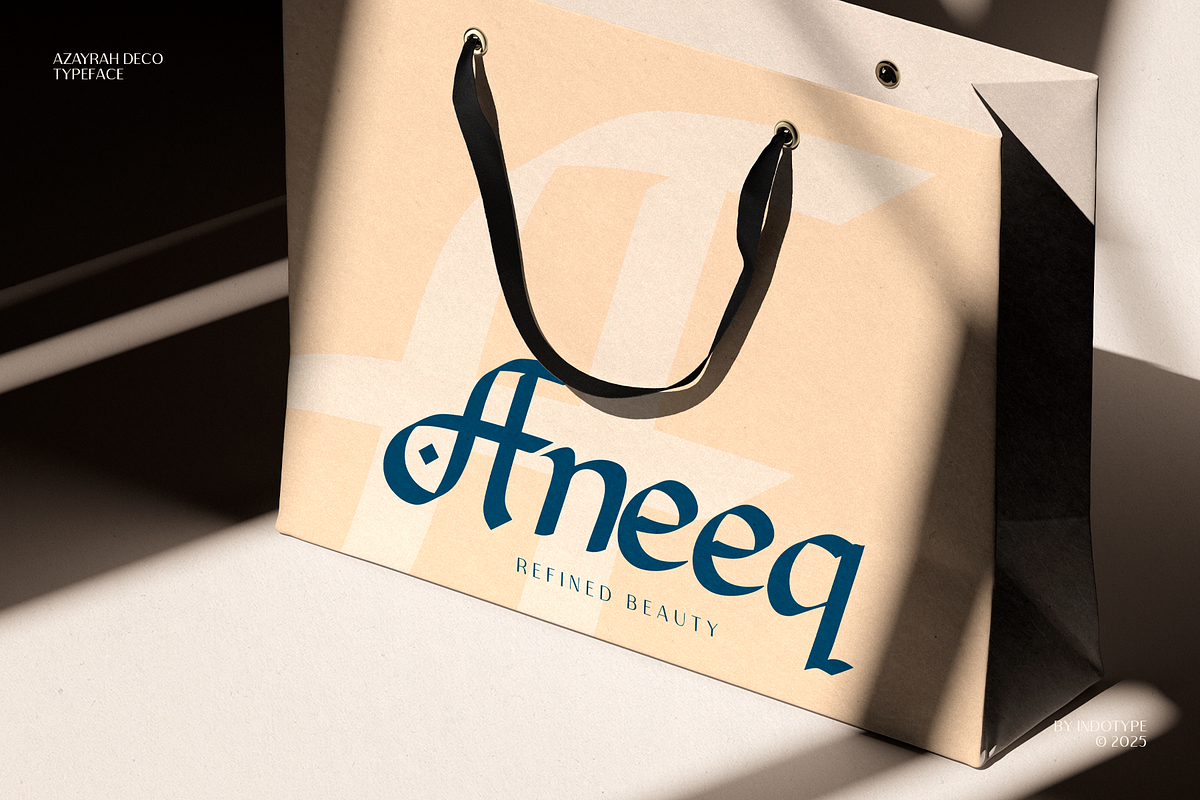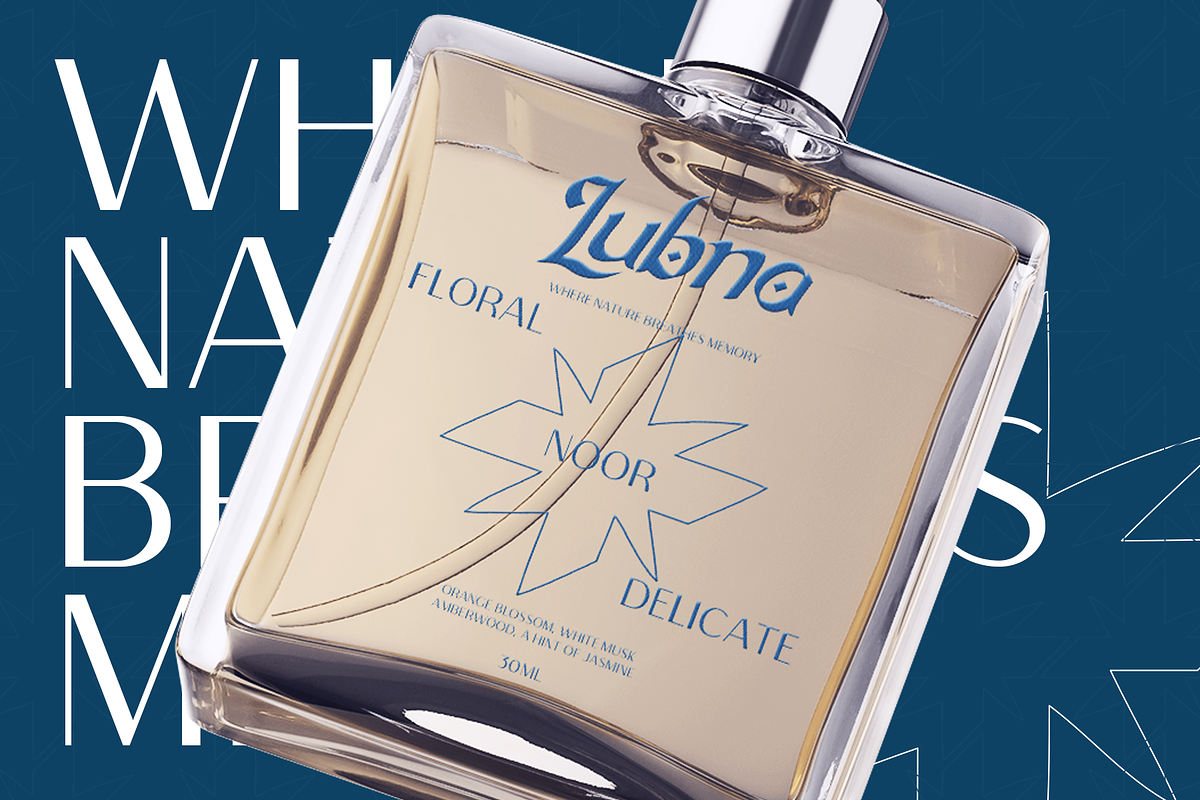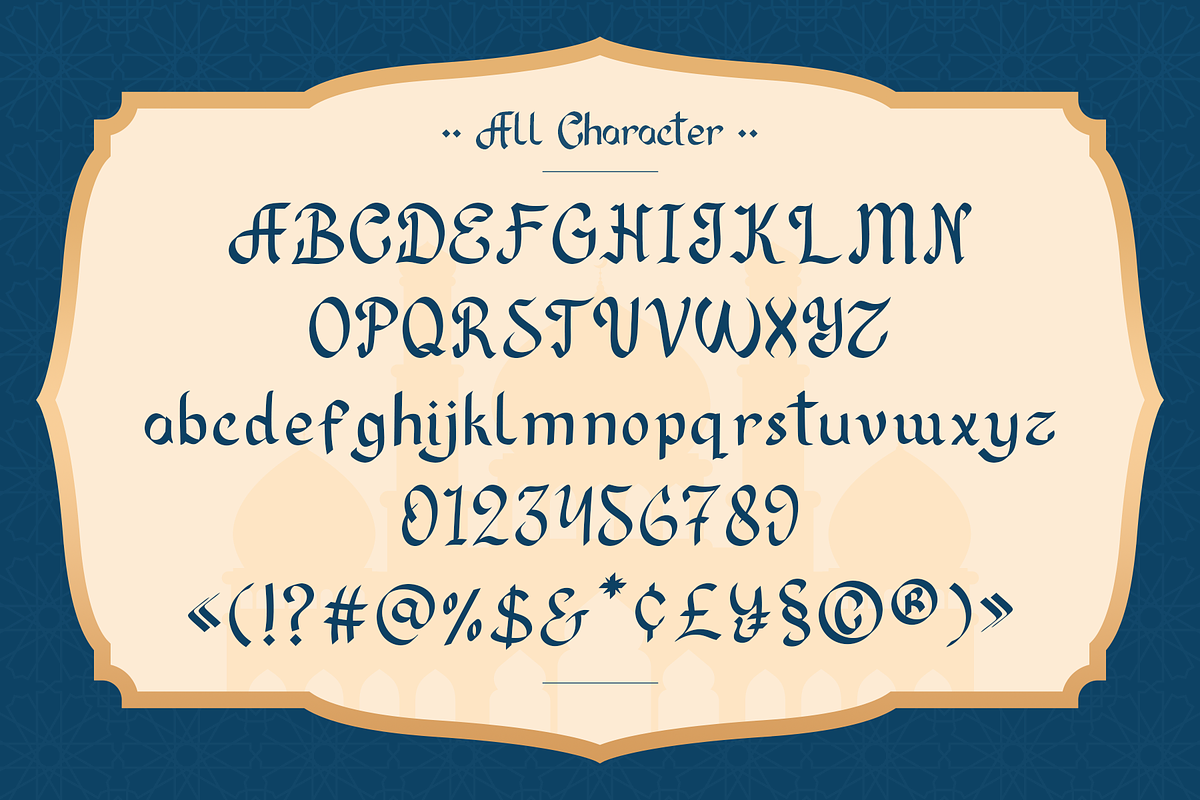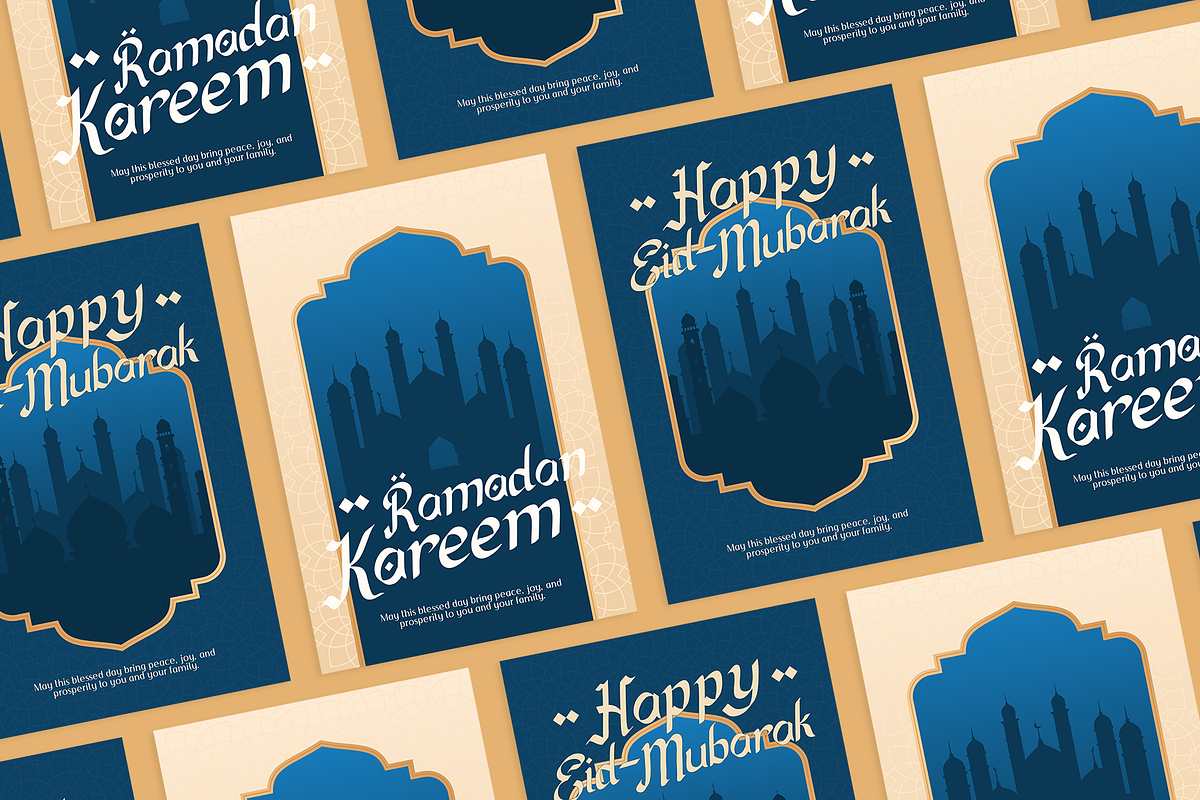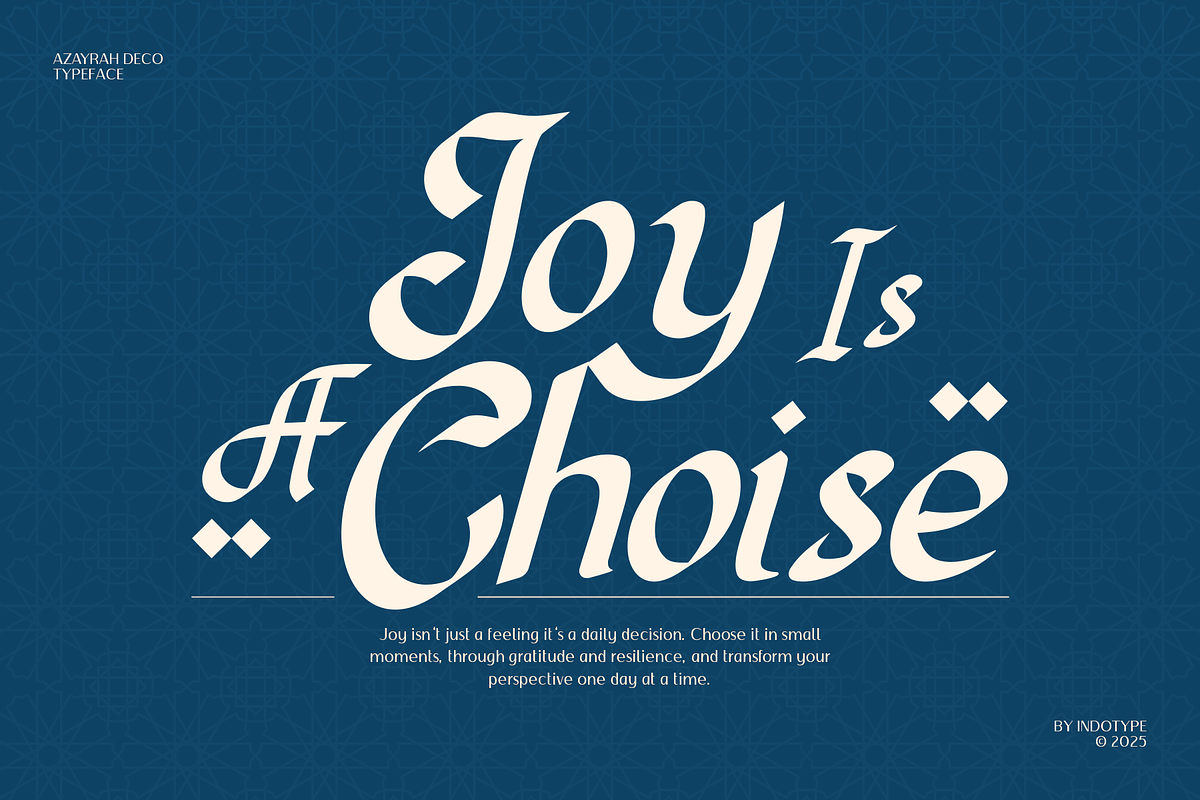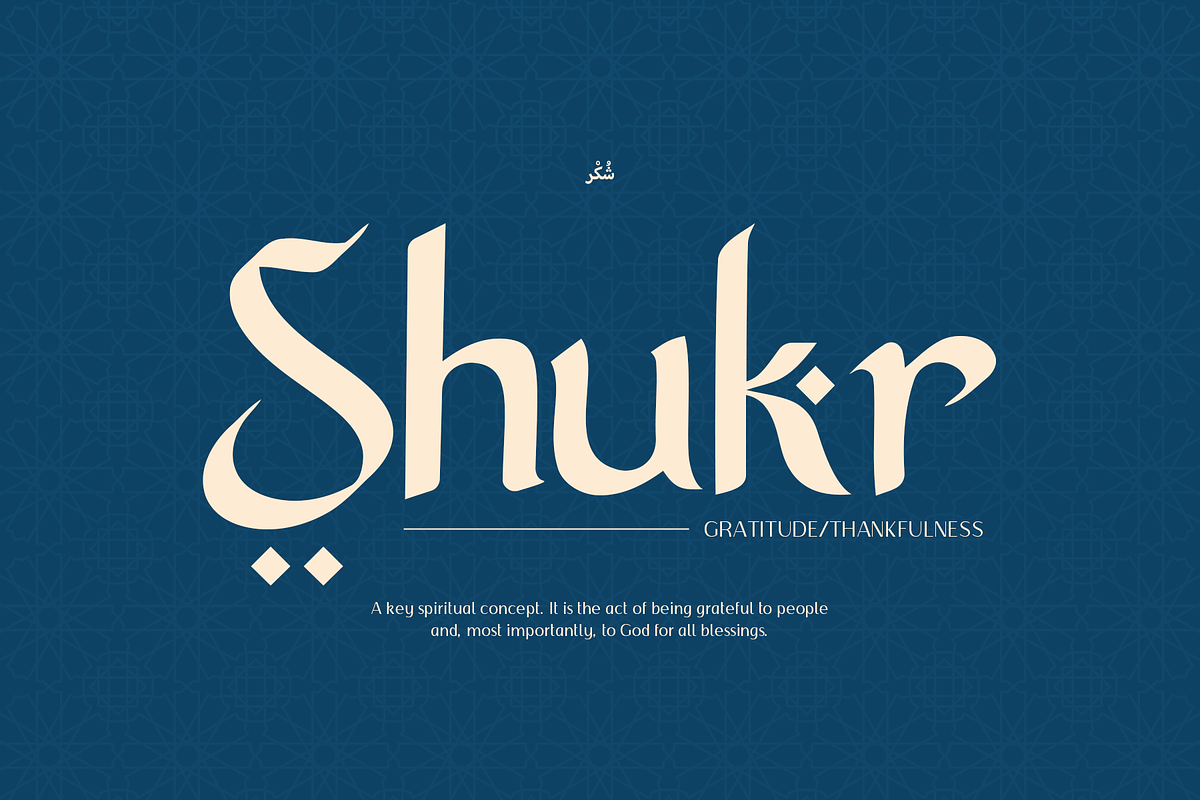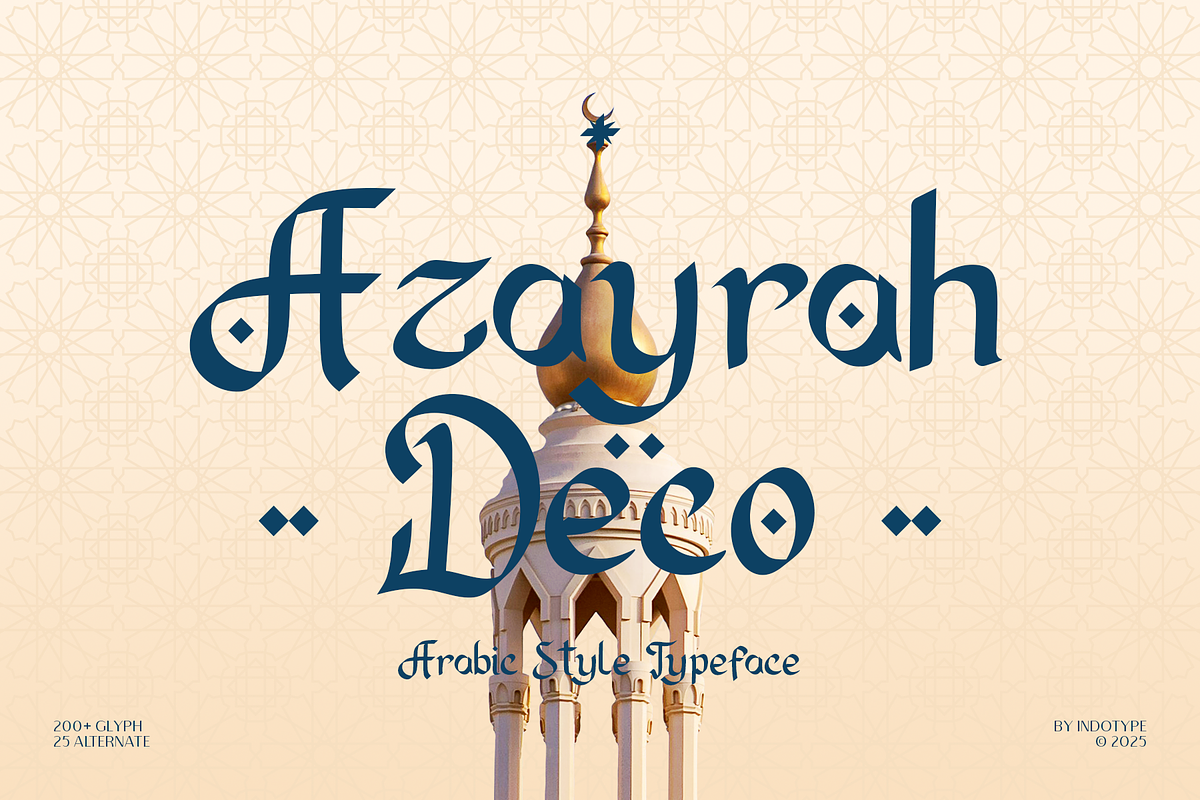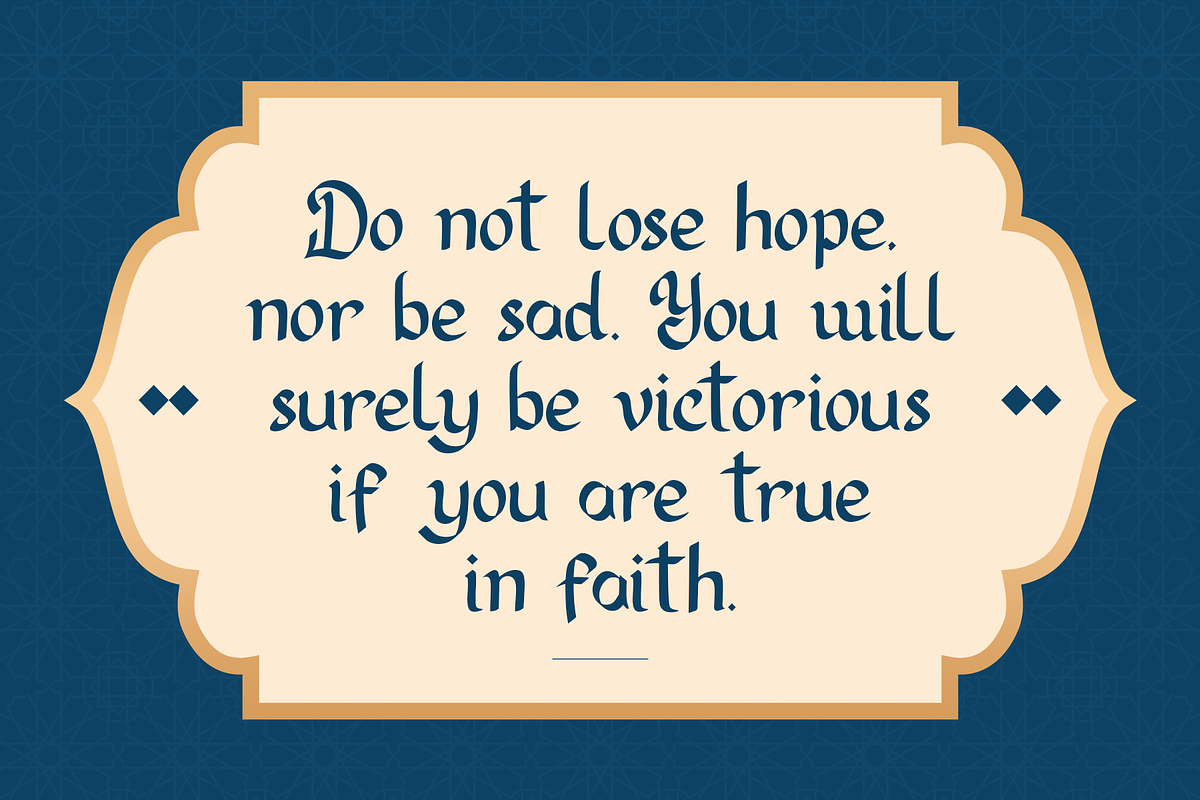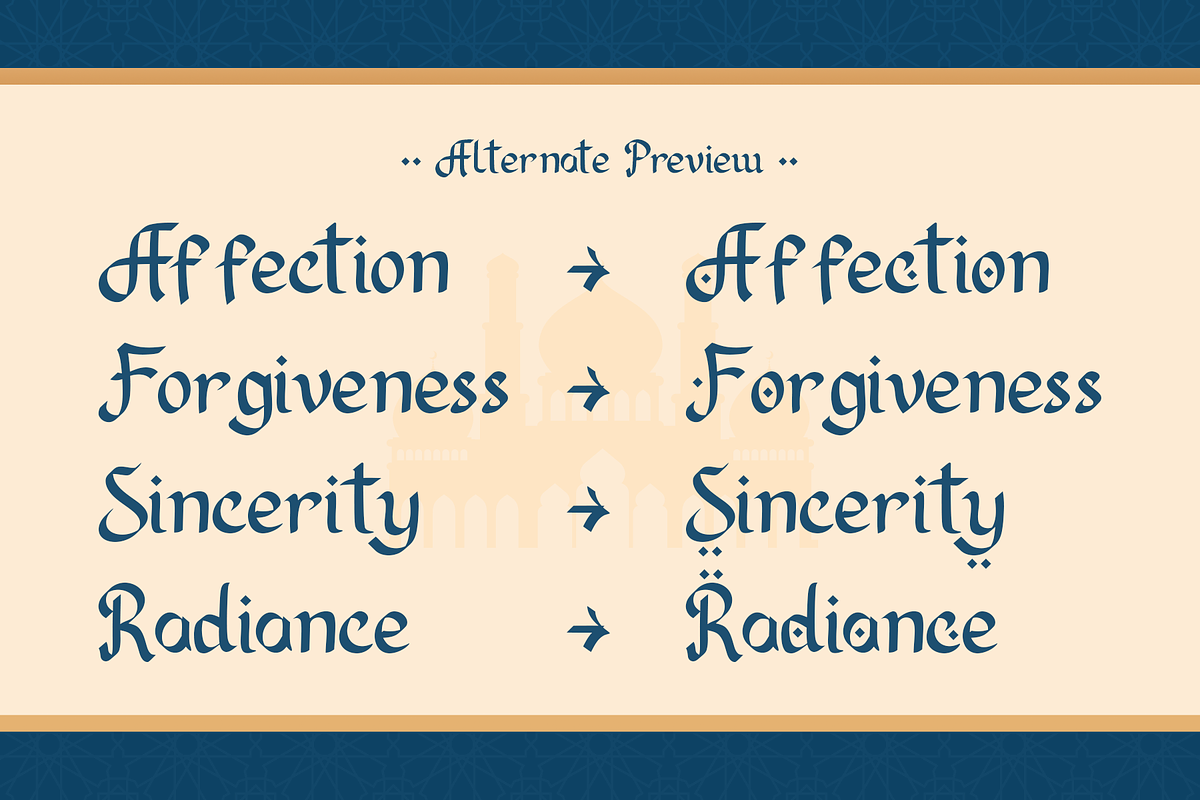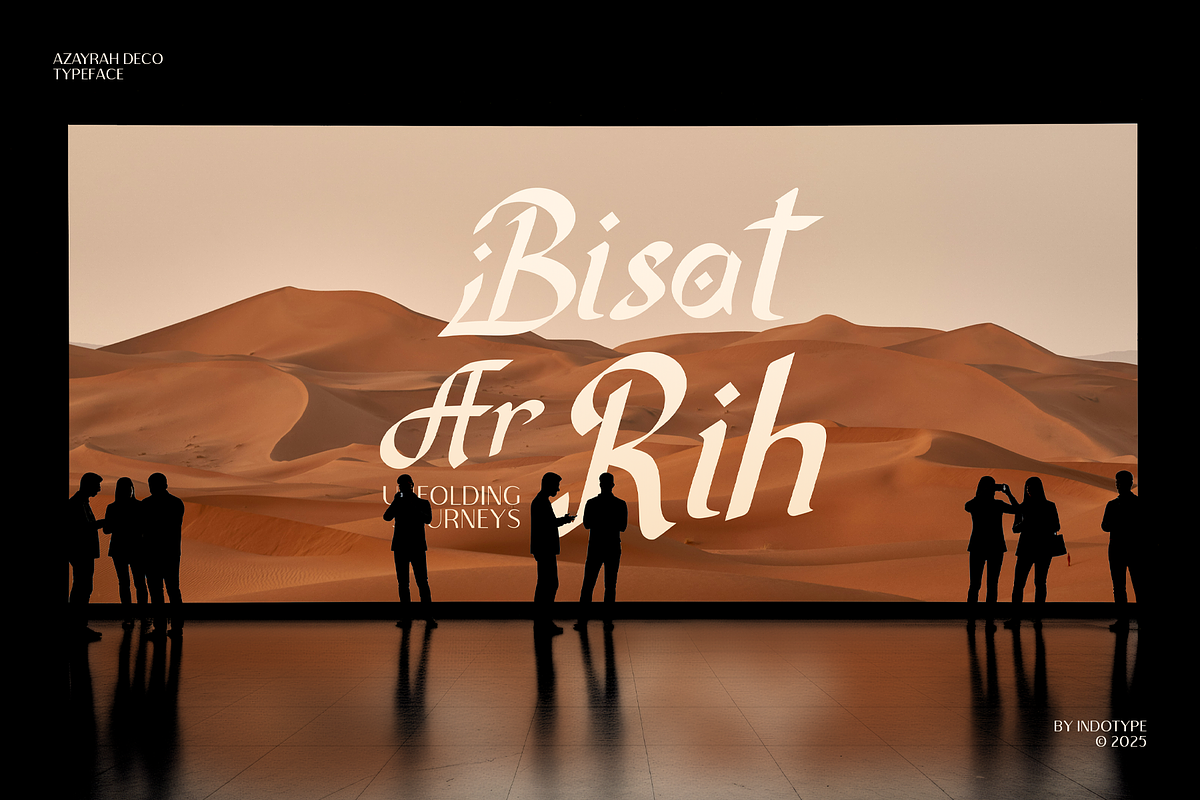
Azayrah Deco - Arabic Style Art Deco
Azayrah Deco is an elegant and intricately detailed display typeface that masterfully blends the timeless beauty of Arabic calligraphic forms with the geometric precision of the Art Deco era. This unique fusion creates a font that is both exotic and sophisticated, perfect for adding a touch of luxury and cultural resonance to your designs. With a generous character set of over 200 glyphs, including 25 stylish alternates, Azayrah Deco offers immense creative flexibility. These alternates allow you to customize words and logos, ensuring your designs remain unique and fluid. Ideal for high-end branding, fashion headlines, product packaging, and decorative titles, Azayrah Deco brings an air of ornate elegance to any project that demands distinction and style. • Ideal for: Luxury Logos, Fashion Branding, Product Packaging, Poster Headlines, Wedding Invitations, Cultural Projects. • Classification: Display, Decorative, Arabic-Style, Art Deco. • Attributes: Ornate, Elegant, Intricate, Cultural, Luxurious, Sophisticated.